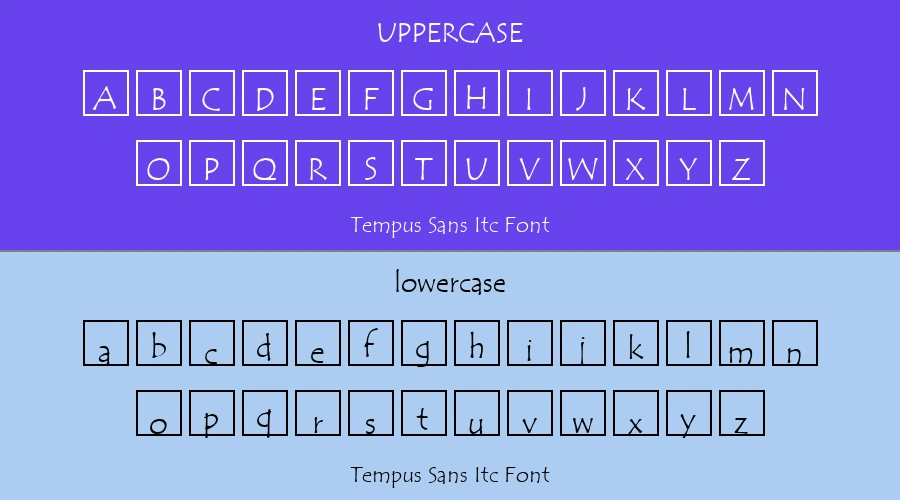
About Tempus Sans Itc Font
Tempus Sans Itc Font represents a sophisticated approach to type design, balancing sharp terminals with traditional values. Perfect for social media content, this font family showcases impressive consistency and creative excellence throughout its character set. Designers appreciate its versatility and reliability.
Designers will appreciate nuanced touches including convex bowls and language support, adding sophistication to any project. These features become apparent in historical documents, where headline impact matters most. The careful treatment of bowl width and brand personality ensures optimal performance.